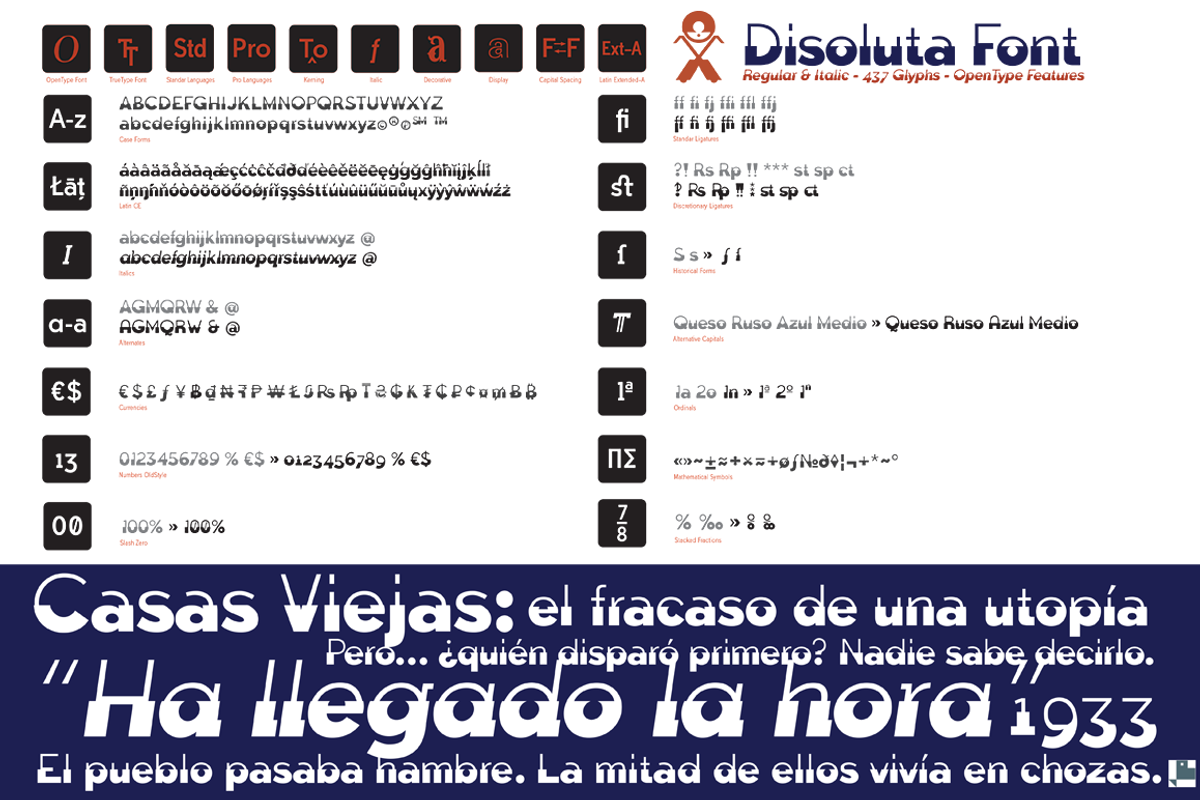
Disoluta font
Disoluta font by deFharo is a font selected for branding, posters, packaging, typography.
- Disoluta is a typographical experiment fusion of two sans fonts with different weights, for which I used my previous Typefaces: Tabarra Ligh
- OpenType features: Alternate characters • Numbers old style • Numbers Small Caps • Ligatures • Fractions • Currencies • Denominators • Numer
- Disoluta Regular
- Disoluta Italic
Why Disoluta font is worth a look
Disoluta font by deFharo fits naturally into Branding, posters, packaging, typography.